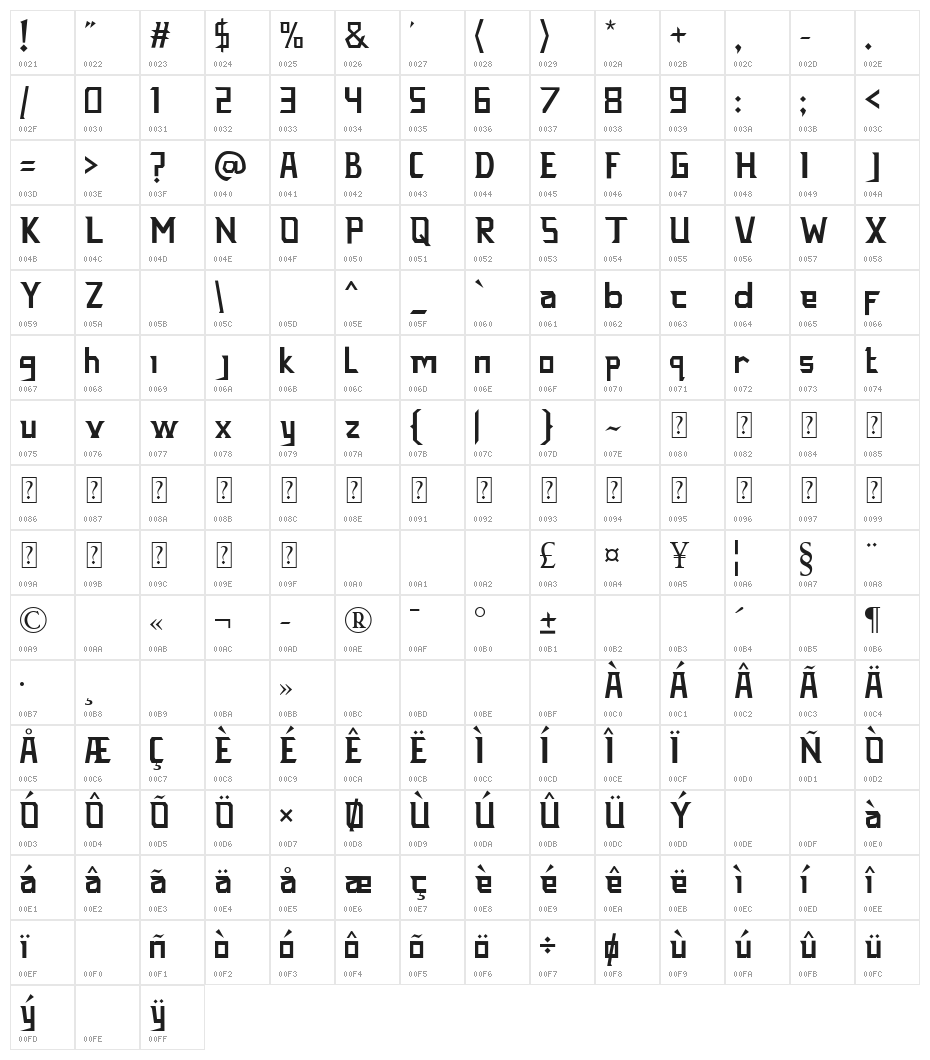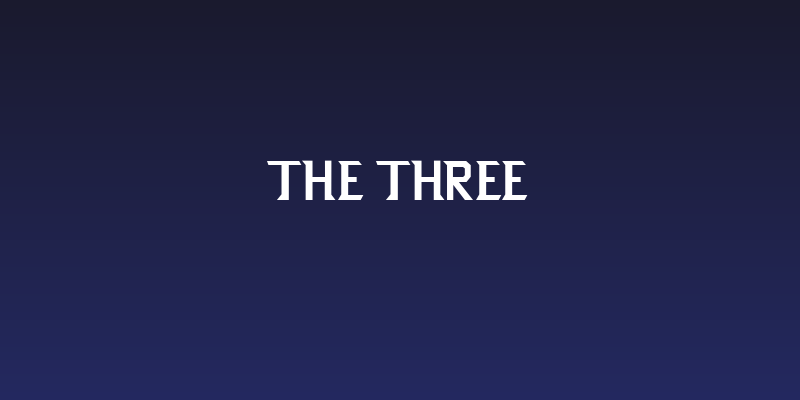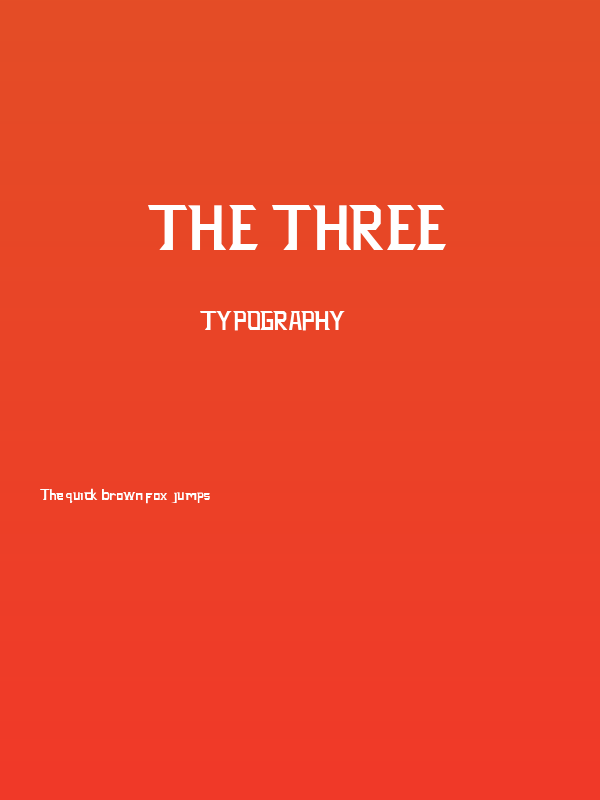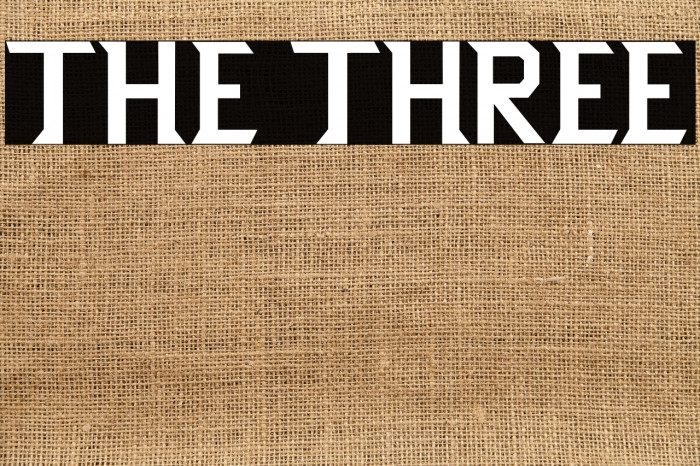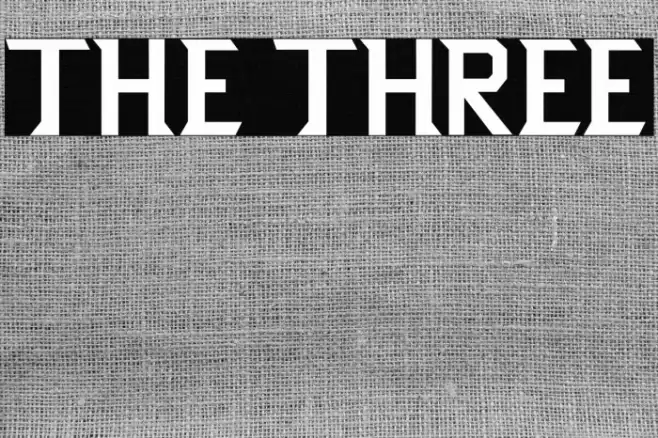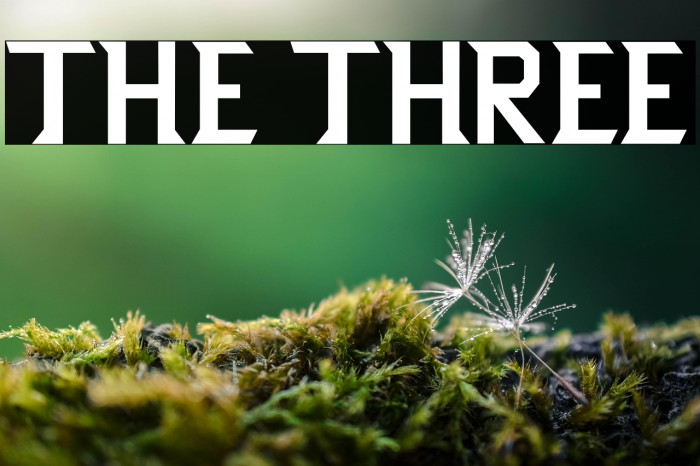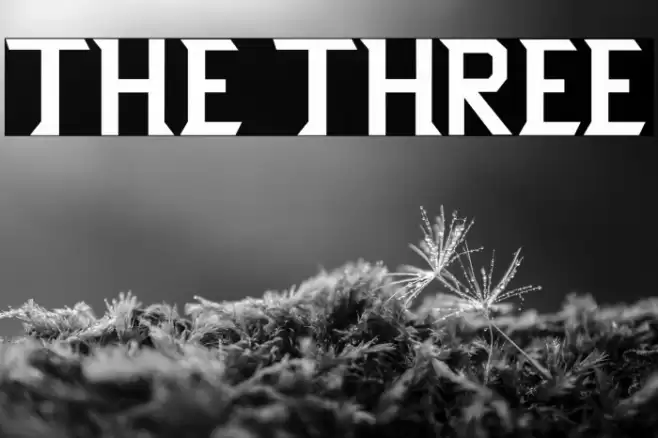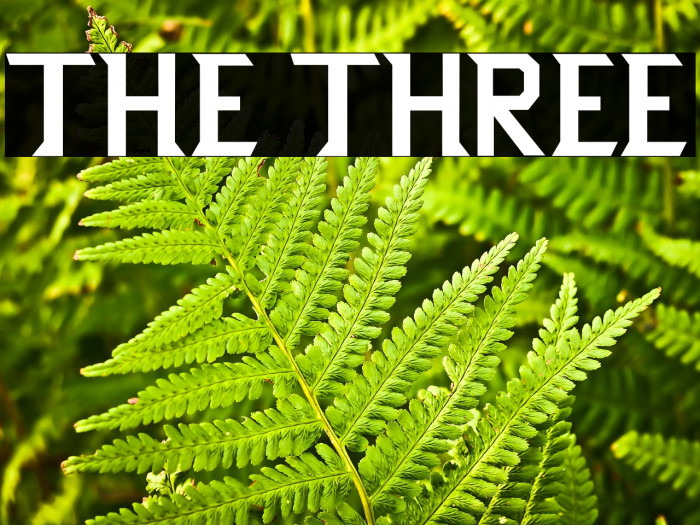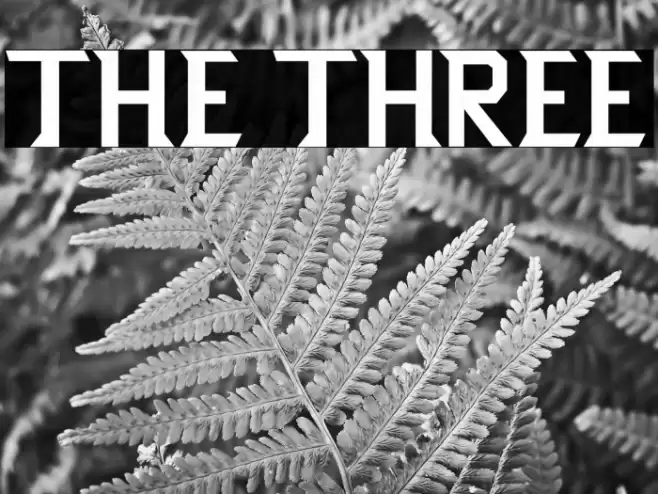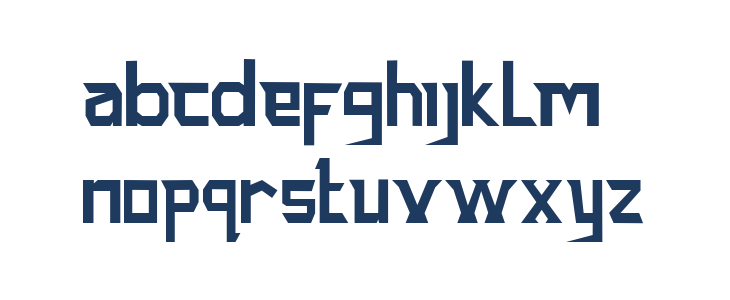
THE THREE Font
THE THREE Description
This font features a bold and angular design, characterized by sharp edges and geometric shapes. The uppercase letters exhibit a strong, commanding presence with a futuristic flair, while the lowercase letters maintain a consistent style with slightly more rounded elements. The numerals are distinct and easily readable, following the same angular theme. Special characters are creatively integrated, maintaining the overall aesthetic. The font's unique style makes it suitable for projects that require a modern, edgy look.
| Proposed Projects | Ideal for sci-fi themed posters, video game titles, branding for tech companies, and modern art installations. |